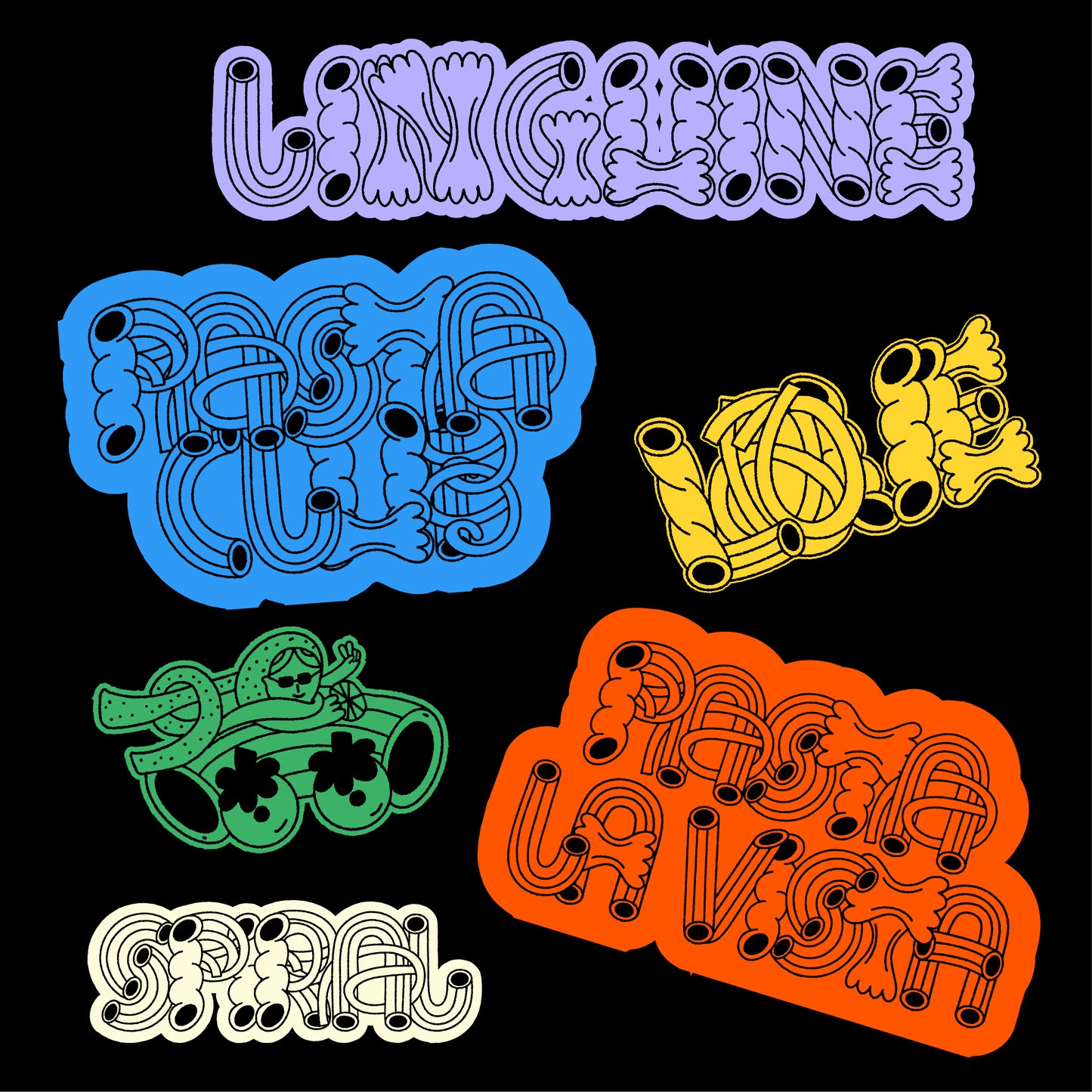
Pasta
Harry Wright
Introducing 'Pasta', an innovative typeface inspired by the diverse shapes and textures of pasta. Each letter is crafted to reflect the playful and versatile nature of pasta forms, pushing the boundaries of traditional type design. 'Pasta' combines culinary inspiration with creative typography, offering a fresh and dynamic approach to visual communication. Ideal for bold headlines, unique branding projects, and creative displays, 'Pasta' promises to add a flavourful twist to your design toolkit.
- Total glyph set: 150+
- All uppercase
- Most letters have 1-3 alternate pasta shapes
- 2 styles (Handmade & Regular)